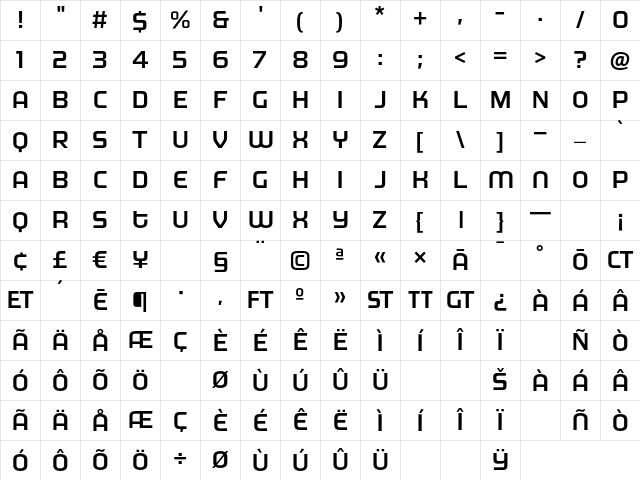
MorganBig Medium Free Font
MorganBig Medium
MorganBig Family
Design Context for MorganBig
MorganBig is a composed and adaptable typeface that performs quietly and consistently across a wide range of design contexts.